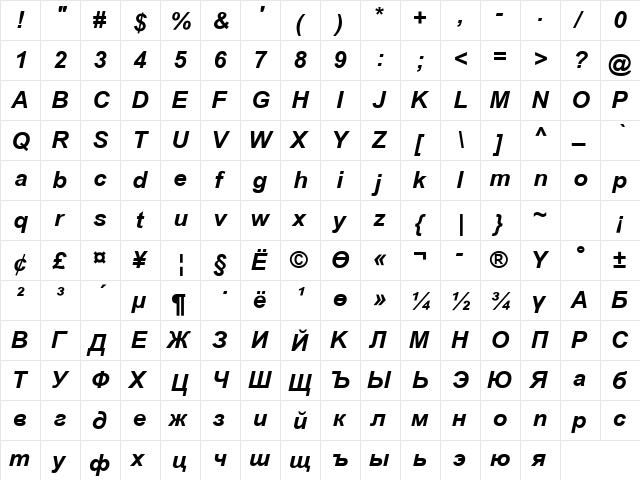
SUNA Arial Bold Italic Font Preview
Design Context for SUNA Arial Typeface
SUNA Arial takes a measured approach to typography — its balanced proportions and neutral character make it a reliable workhorse for both digital and print work. Its italic angle brings a sense of urgency and motion to the letterforms. The heavy weight commands attention and anchors typographic hierarchies.
Pro Tip: Try SUNA Arial for annotation and caption copy alongside an upright companion — the contrast in angle creates a dynamic but ordered typographic system.